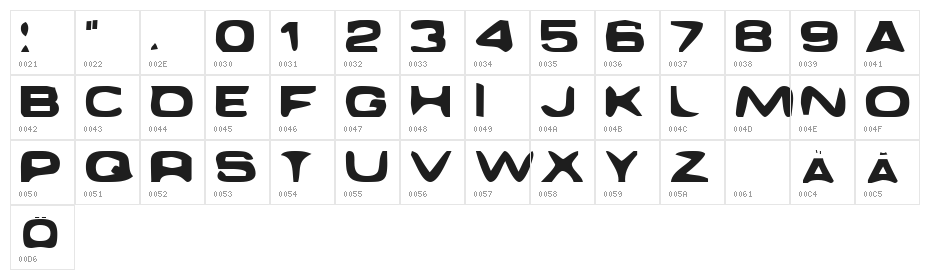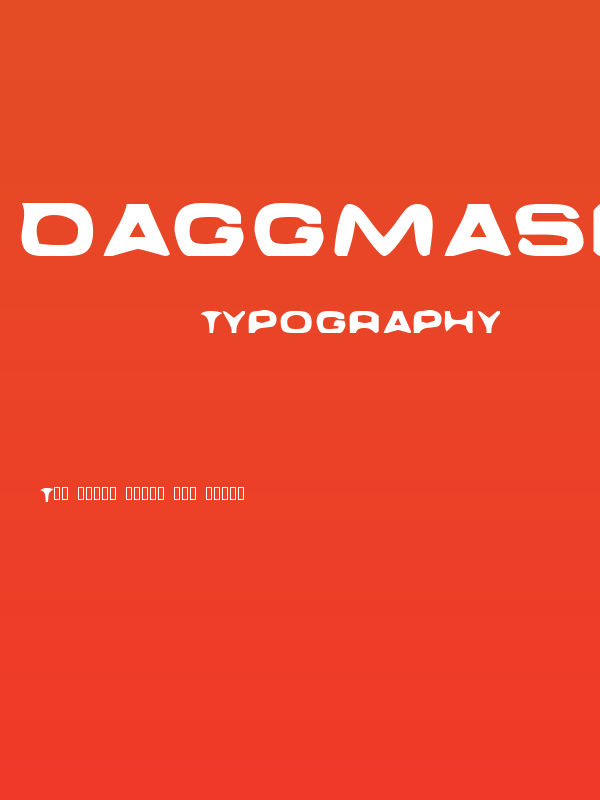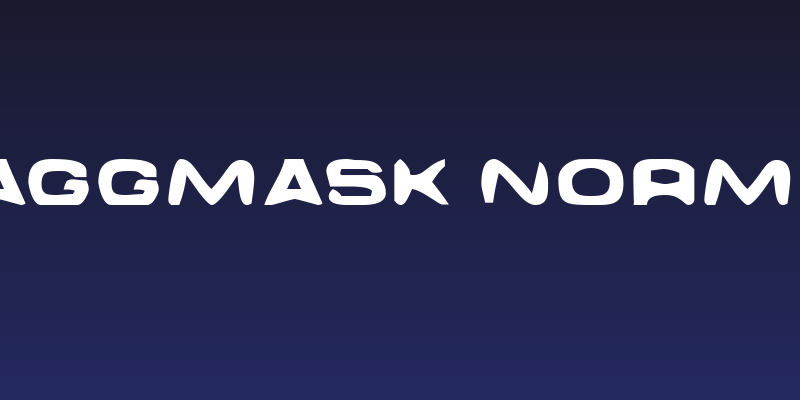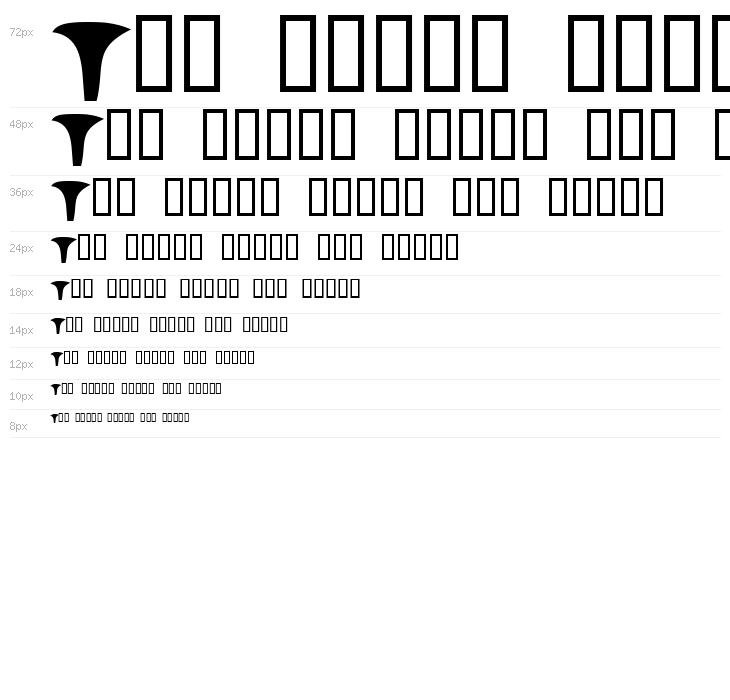
Daggmask Normal Font
Daggmask Normal Description
This font features a bold and dynamic style with a futuristic and slightly abstract appearance. The uppercase letters are characterized by their thick, rounded forms and unique cuts that give them a distinct, modern look. The numbers follow a similar design ethos, maintaining consistency with the alphabet. The font's overall aesthetic is eye-catching and suitable for projects that require a strong visual impact. Its design is reminiscent of sci-fi themes, making it ideal for creative and innovative applications.
| Overall Style | Futuristic, Modern |
| Proposed Projects | Ideal for sci-fi themed designs, video game titles, movie posters, and branding for tech companies. |